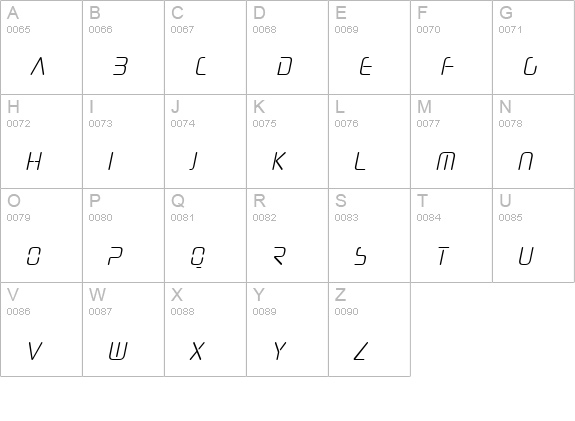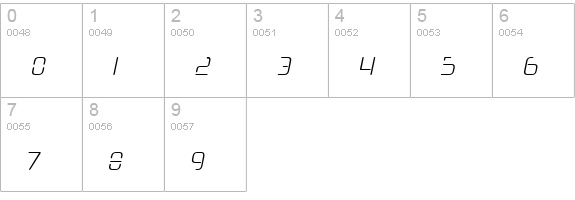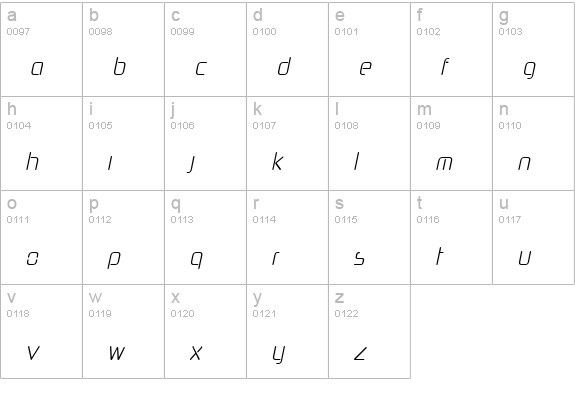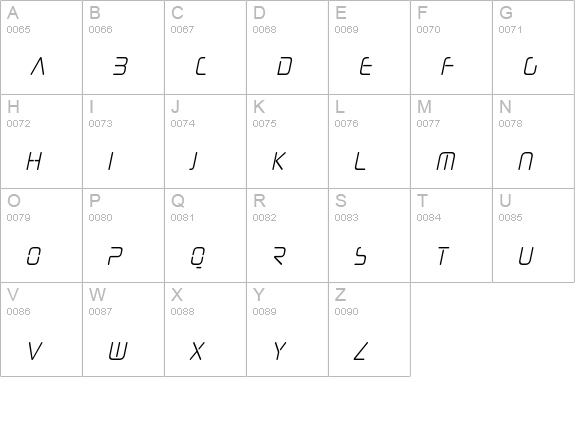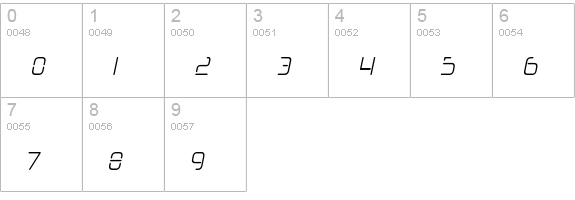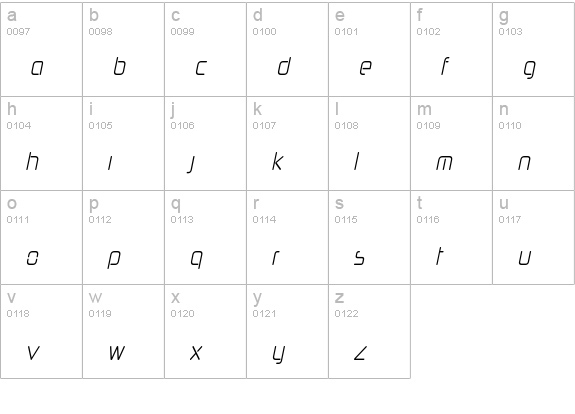
Neuropol Nova Cnd Lite Italic Font Details
Neuropol Nova Cnd Lite Italic is a distinctive, italic variant in the Neuropol typeface family \xE2\x80\x94 well suited to design and typography projects.
Neuropol Nova Cnd Lite Italic font is a sleek and modern typeface that exudes a sense of futuristic sophistication. With its clean lines and subtle curves, this font is perfect for conveying a sense of innovation and technology in your designs. The italic style adds a dynamic touch, making it ideal for adding emphasis or creating a sense of movement. What sets Neuropol Nova Cnd Lite Italic font apart is that it is not only stylish and versatile but also completely free to download. You can easily access this font at FontsMarket.com, where you can enhance your projects with its unique aesthetic without any cost. Whether you are working on branding, web design, or any other creative endeavor, Neuropol Nova Cnd Lite Italic font is sure to make a bold statement and elevate your work to the next level.